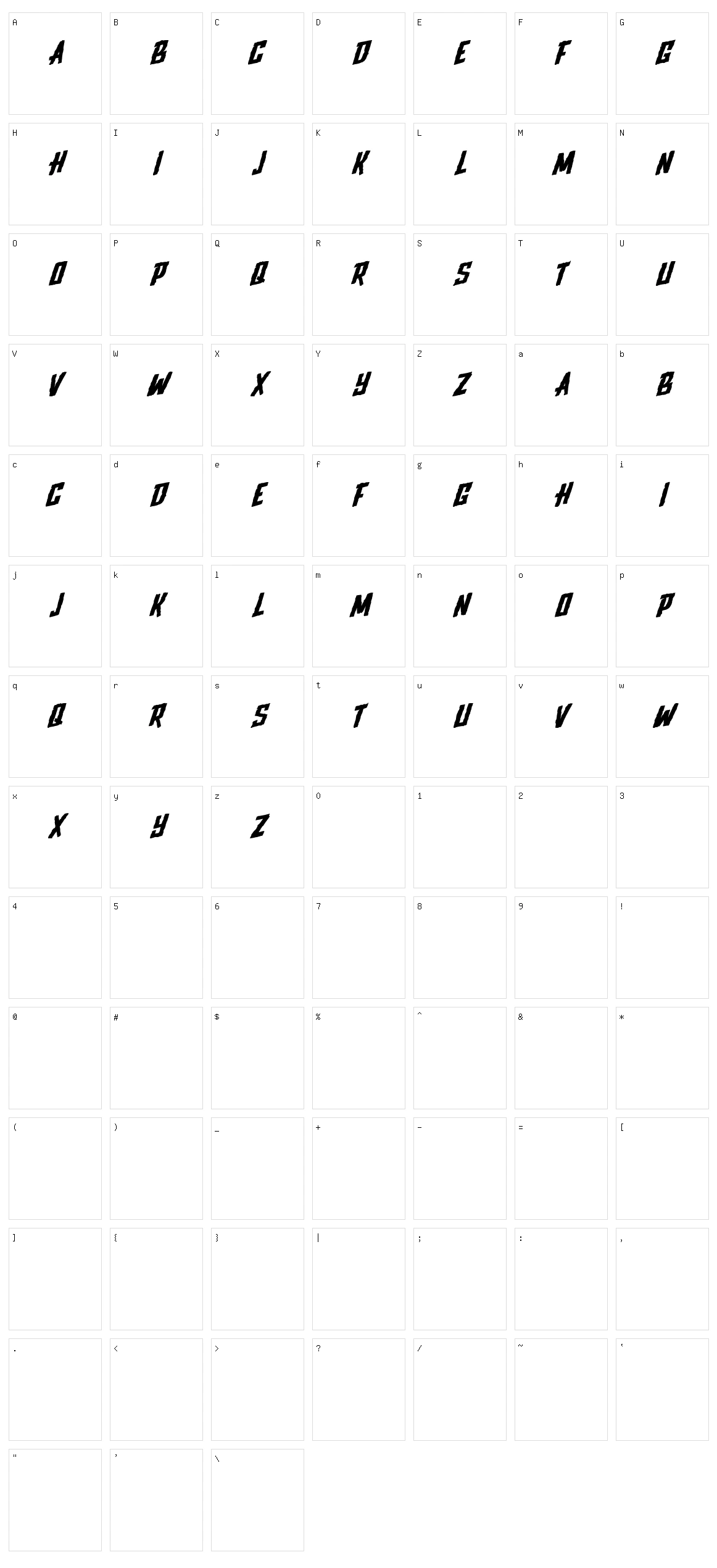
The free font Upjohn Rough is carefully designed by Konstantine Studio, showcasing a thoughtful balance of creativity and usability and falls under the Horror font style. When you download the ZIP file, it contains only 24.3 KB of font files, making it lightweight and quick to download. Please review the license details below to understand permitted usage and distribution rights. If license information is not available, we recommend using this font for personal projects only or contacting the author directly for commercial usage permissions.